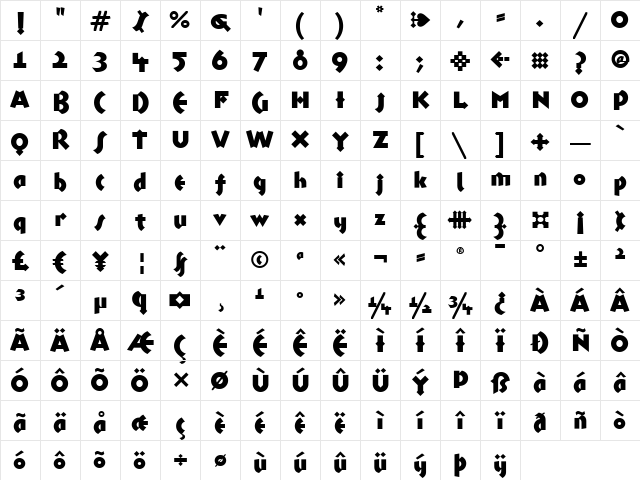
TalkingDrumITC Medium
Foundry: International Typeface Corporation
Design Context for TalkingDrumITC
TalkingDrumITC is a composed and adaptable typeface that performs quietly and consistently across a wide range of design contexts.
Who designed the TalkingDrumITC Medium font?